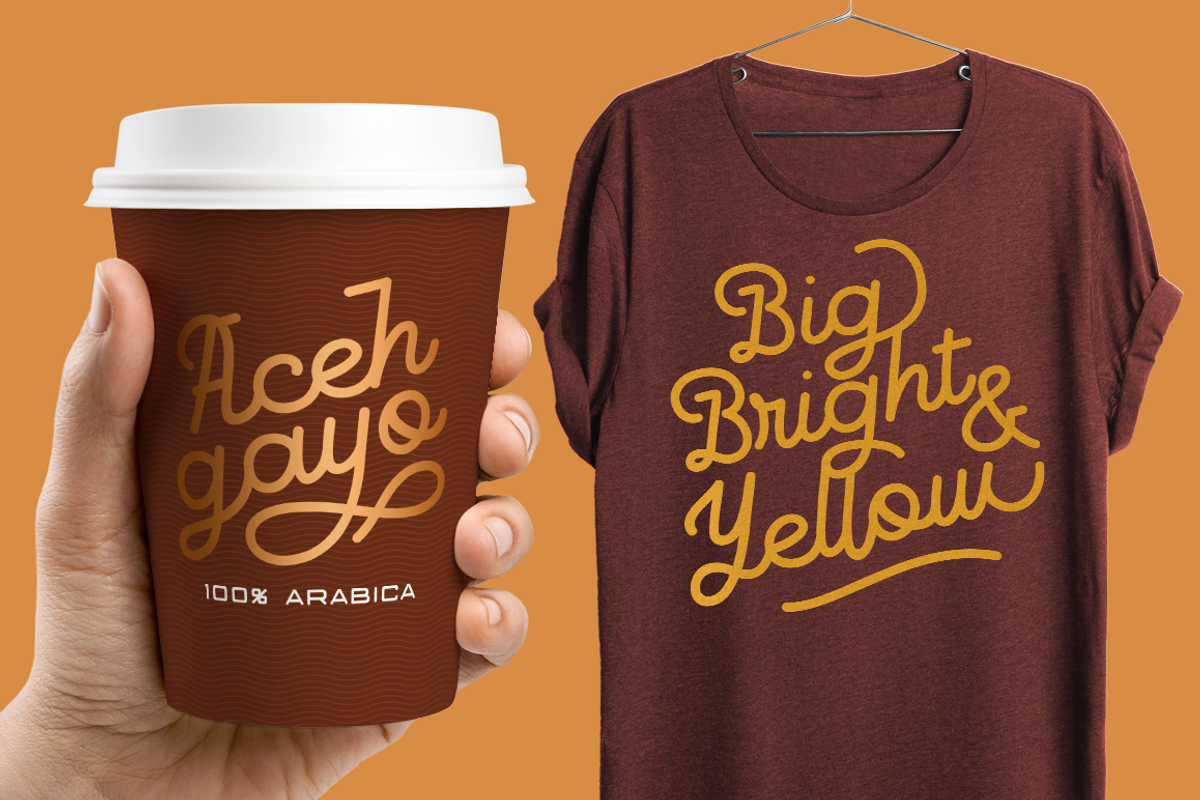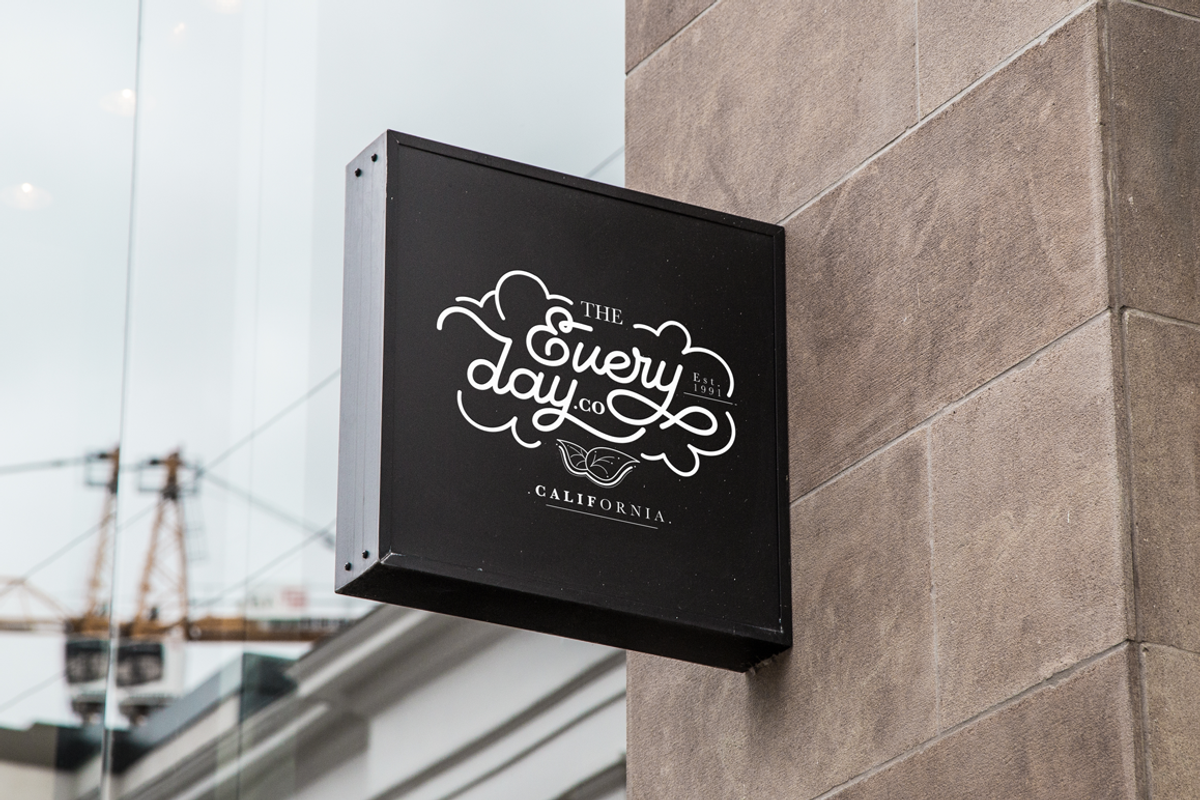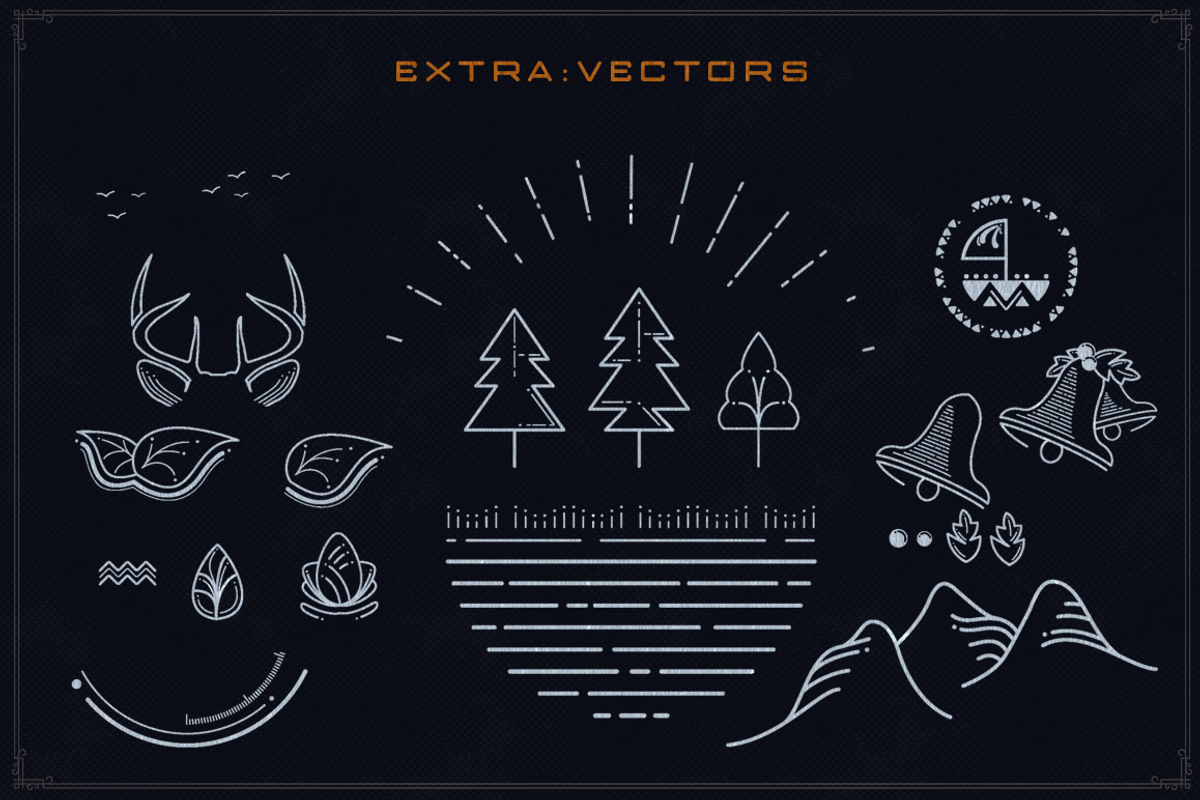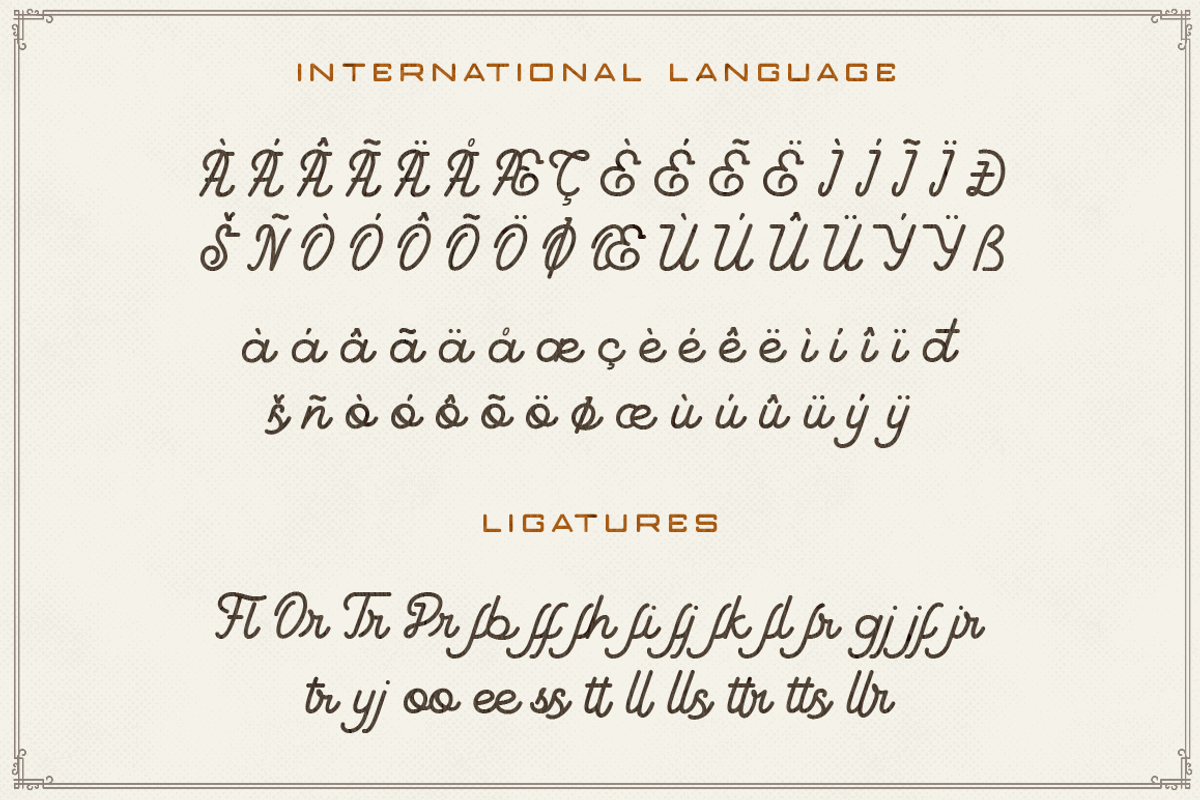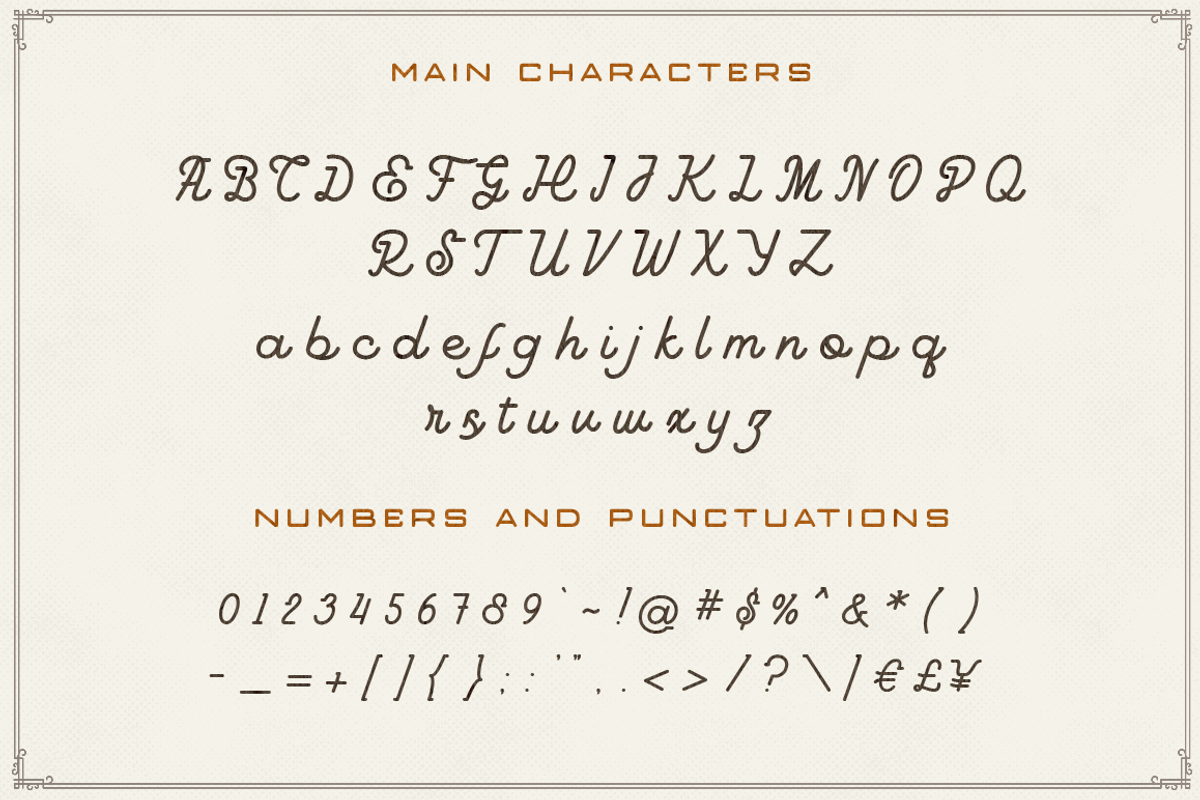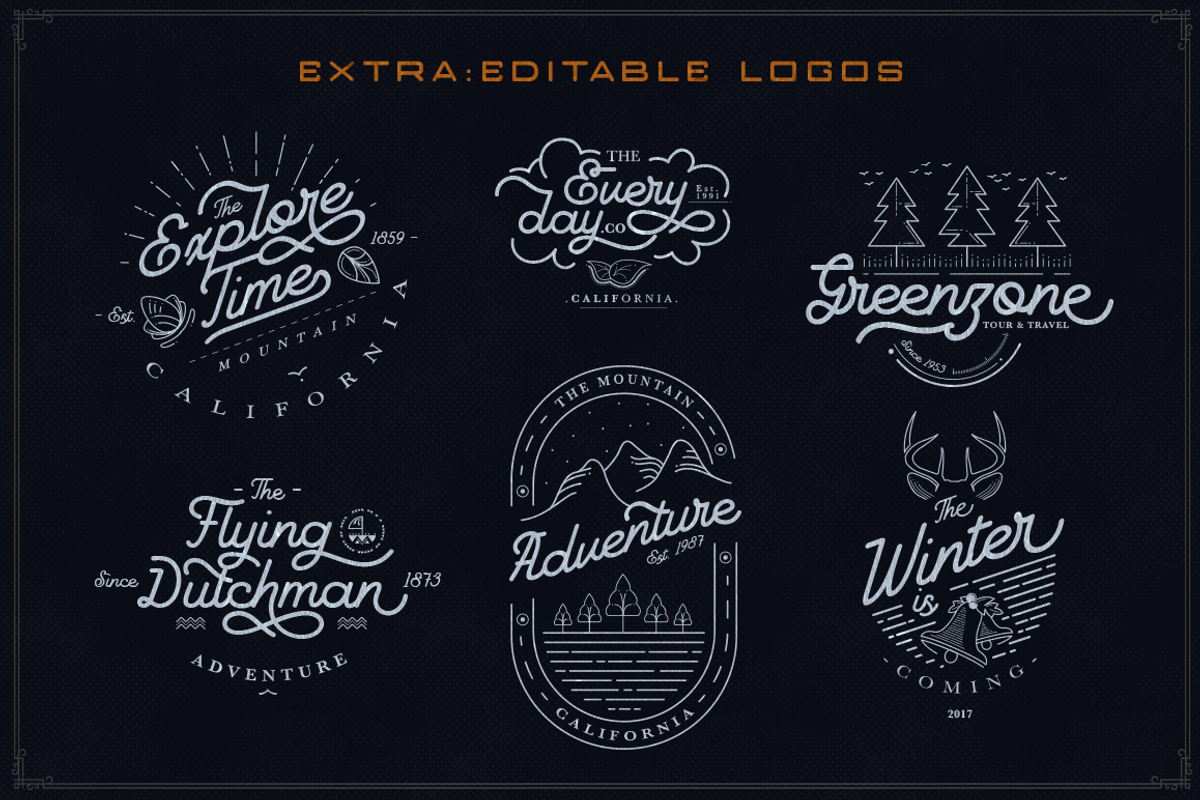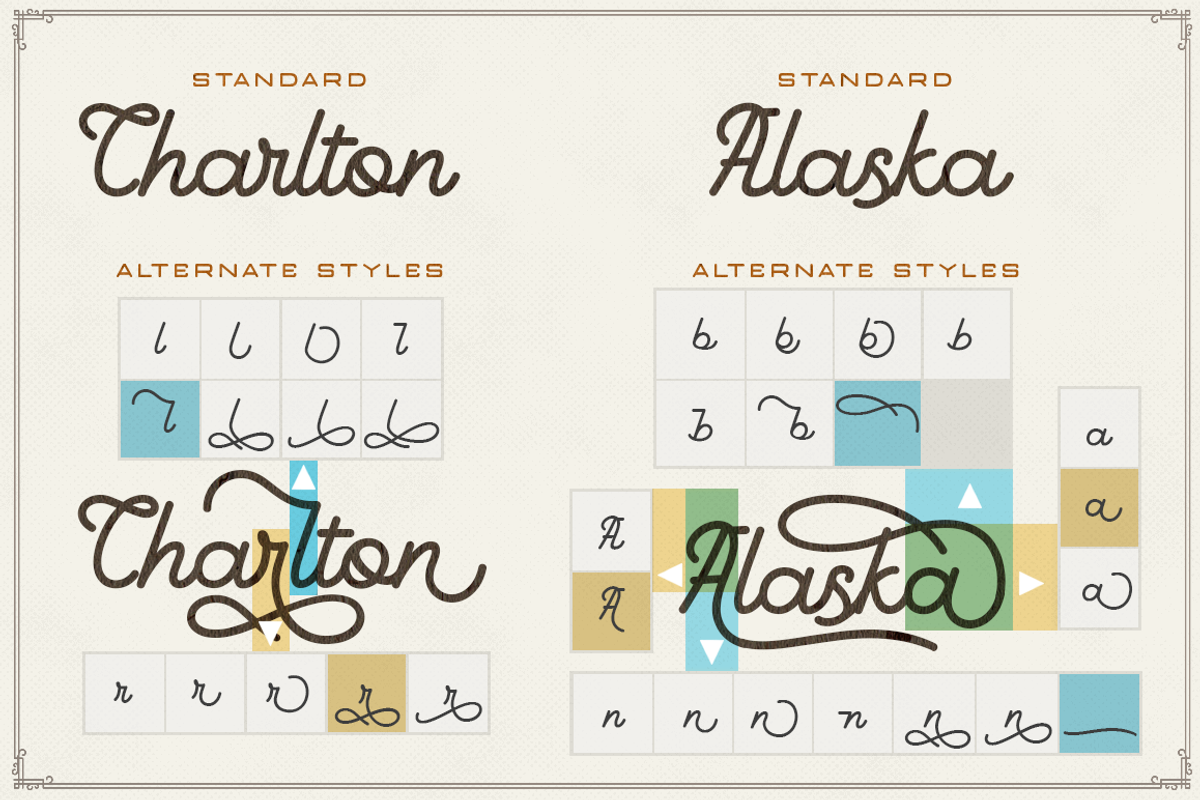
Goodline - Monoline Font + Extras
Finally.. Say hello to my second font, Goodline :)
A simple monoline font with many alternative characters and ligatures. Combined with some swashes, extra editable logo templates and vectors so you can play and create something awesome. Very suitable to use on your logotype project, poster, tshirt, branding, greeting cards, badges, ect. It also support multilingual characters.